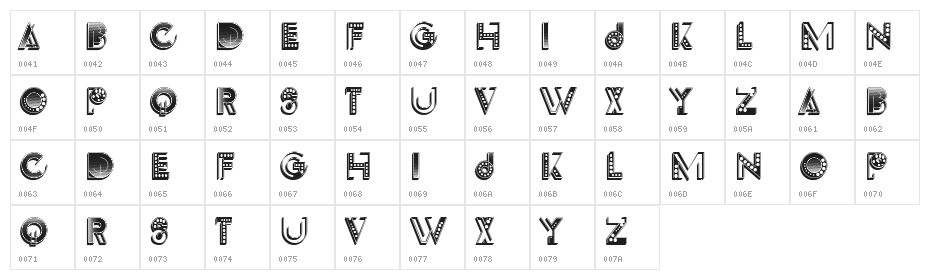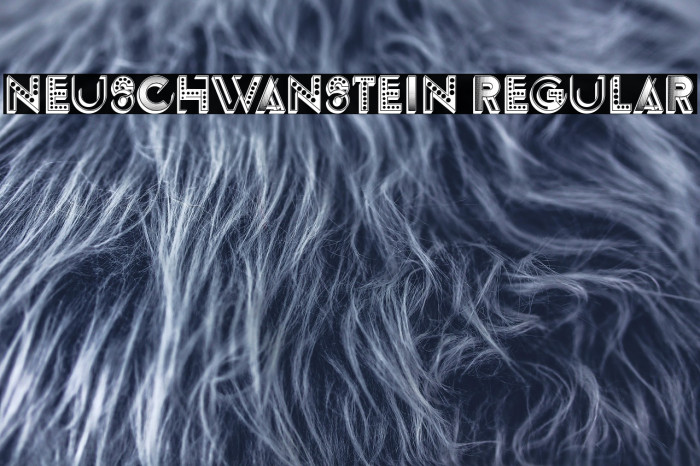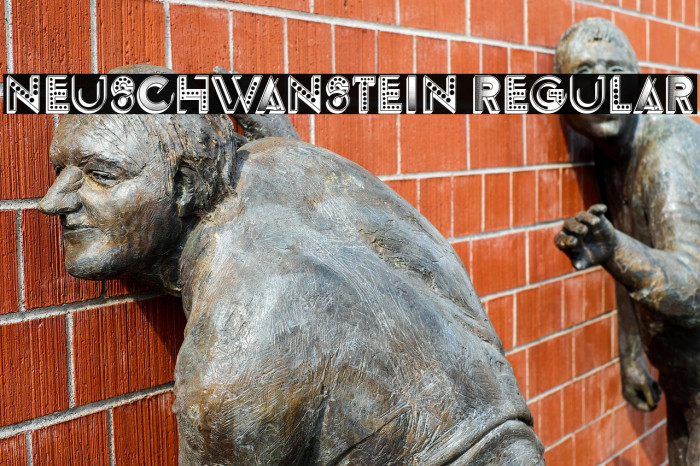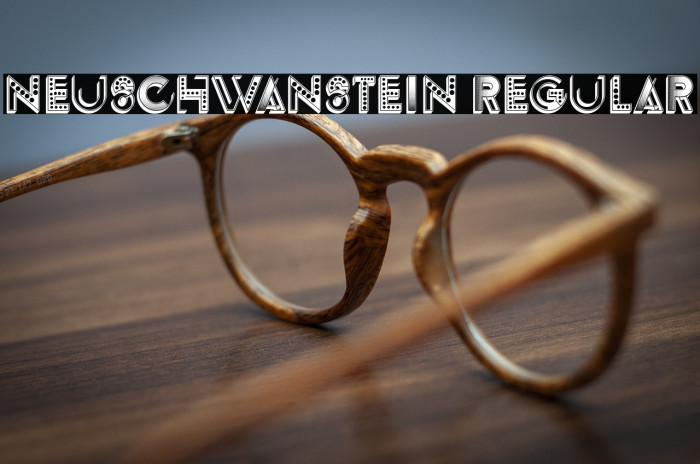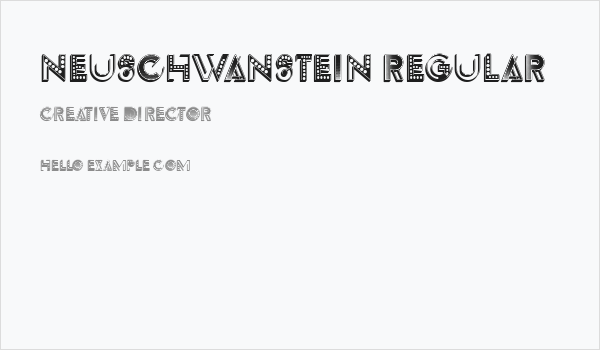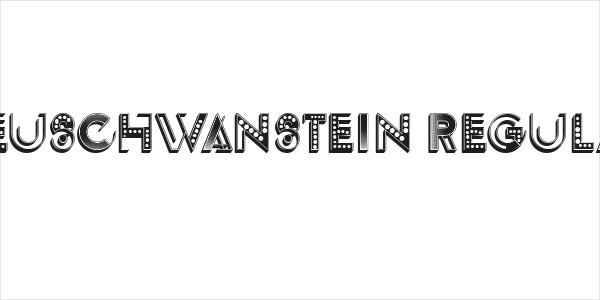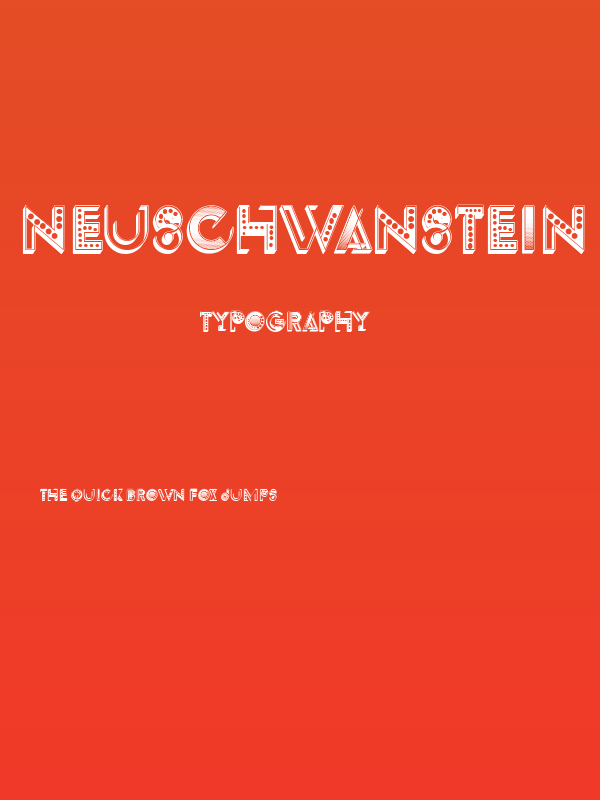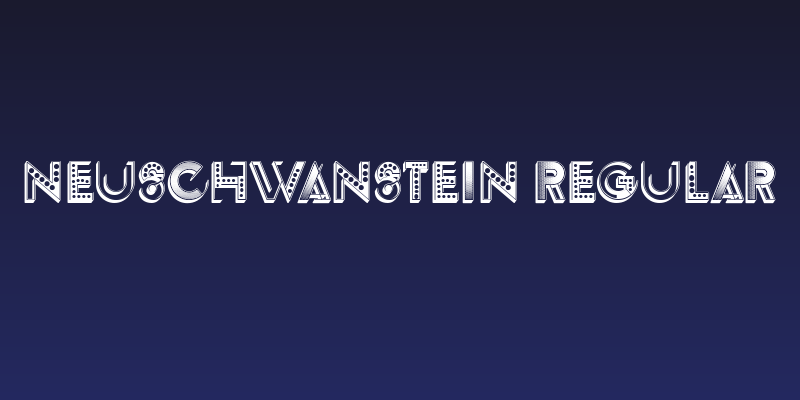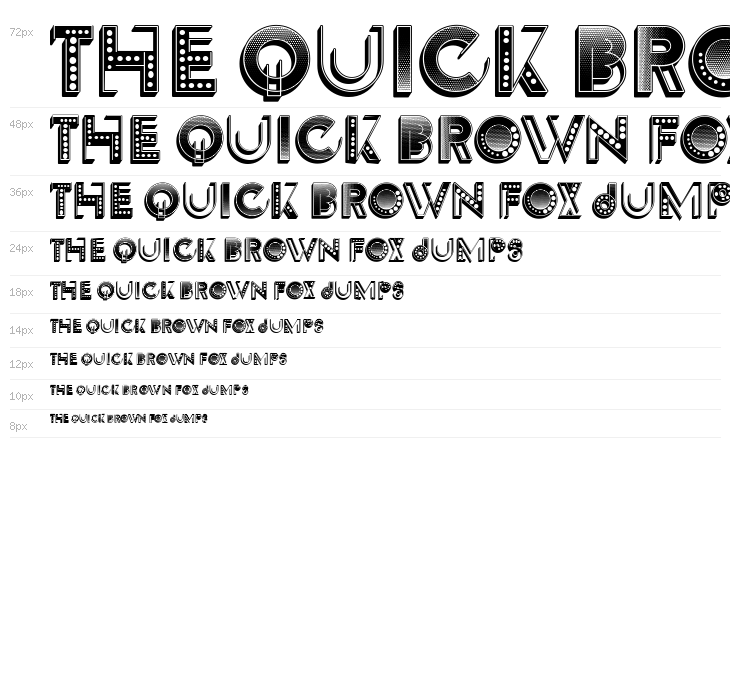
Neuschwanstein Regular Font
Neuschwanstein Regular Description
This font is a bold and decorative typeface that exudes a sense of grandeur and theatrical flair. Each character is intricately designed with a combination of solid fills, outlines, and dotted patterns, reminiscent of vintage marquee lights. The letters are uppercase and feature a three-dimensional effect, giving them a striking and eye-catching appearance. The style is reminiscent of Art Deco with its geometric shapes and elaborate detailing, making it ideal for projects that require a touch of elegance and drama. The font's unique design elements make it stand out, ensuring that any text set in this typeface will capture attention.
| Overall Style | Vintage |
| Proposed Projects | Ideal for theatrical posters, vintage-themed events, signage, and branding that requires a dramatic flair. |